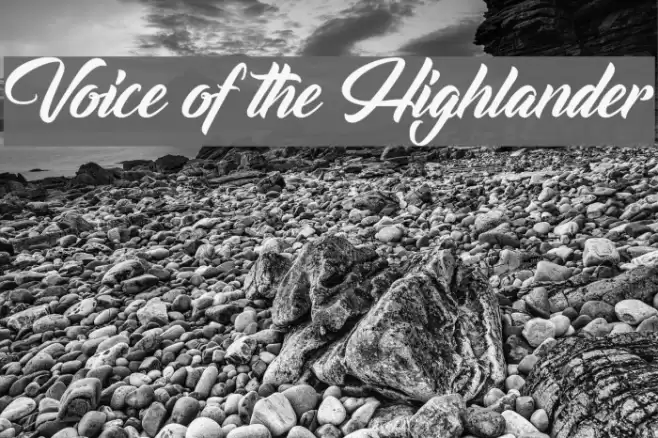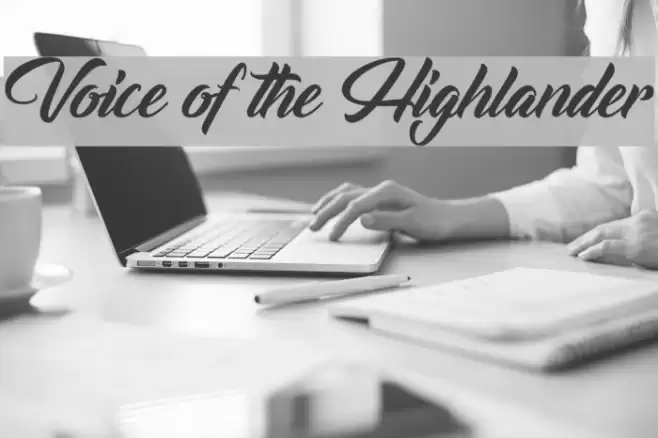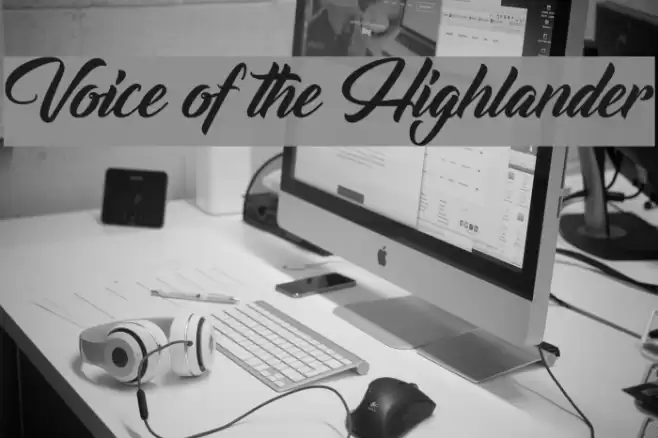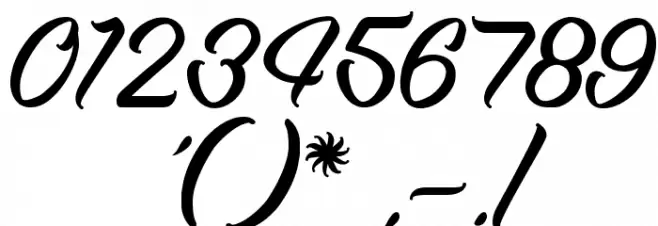
Voice of the Highlander Font
Voice of the Highlander Description
This font features a bold and flowing script style, characterized by its elegant and cursive letterforms. The uppercase letters are particularly ornate, with sweeping curves and flourishes that give a sense of movement and grace. The lowercase letters maintain a consistent style, with smooth connections between characters that enhance readability while preserving the decorative nature. Numbers are equally stylized, matching the overall aesthetic with their rounded and flowing shapes. Special characters are designed to complement the script, adding a cohesive look to any text. This font is ideal for projects that require a touch of sophistication and elegance.
A bold, flowing script font with elegant, cursive letterforms and ornate uppercase letters from Calligraphic fonts.
- Proposed Projects: Ideal for wedding invitations, elegant branding, greeting cards, and decorative signage.
- Overall Style: Elegant
- Use Case: Logos, Invitations, Decorative Text